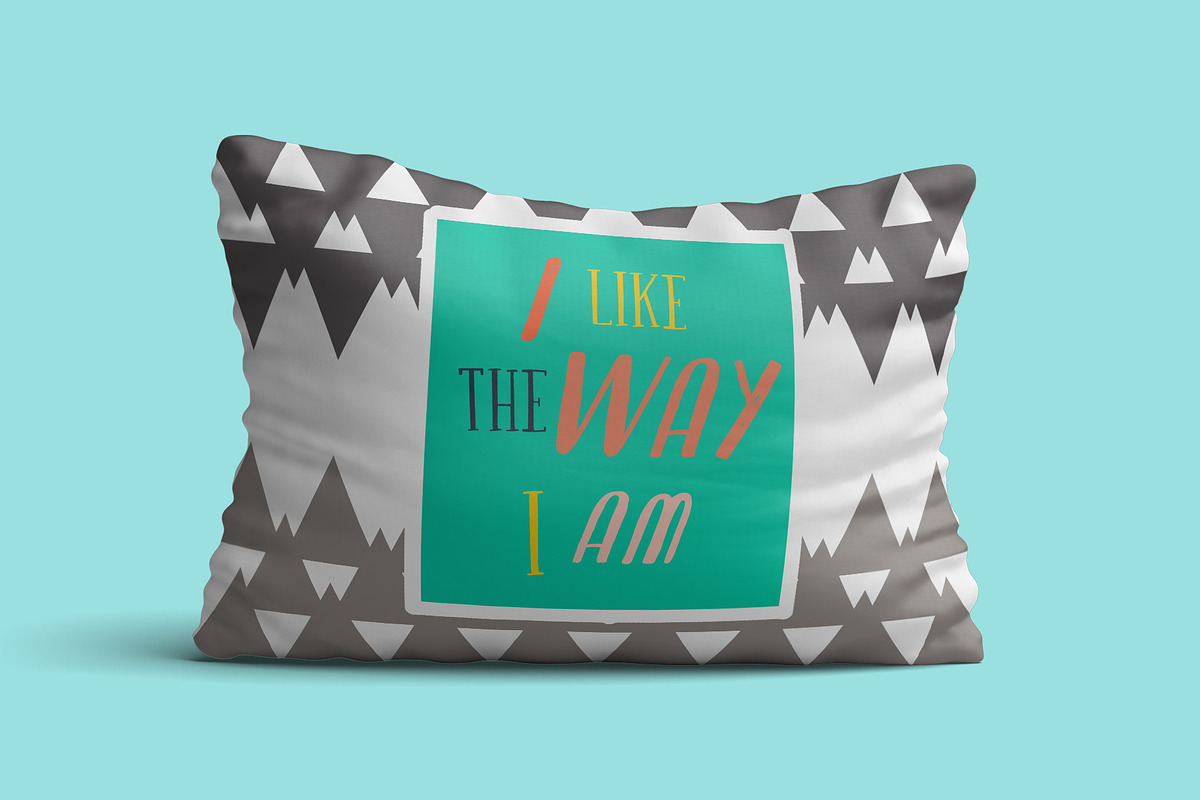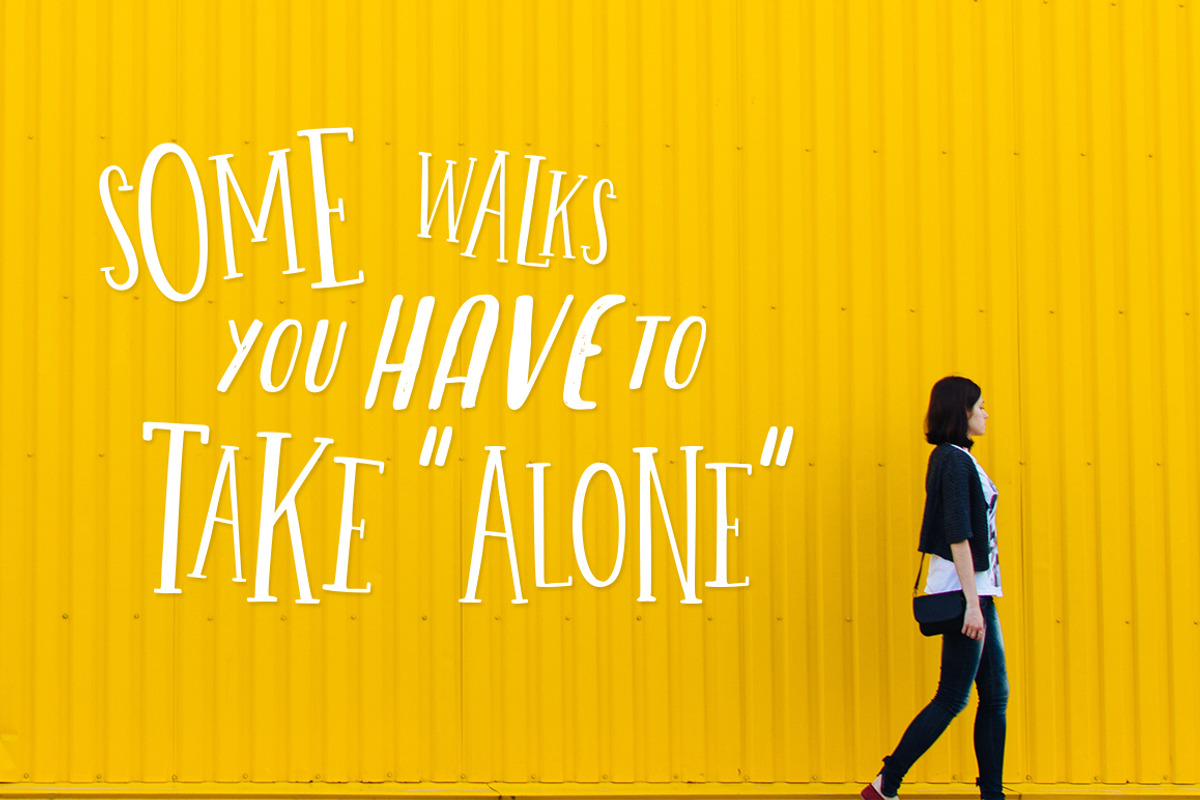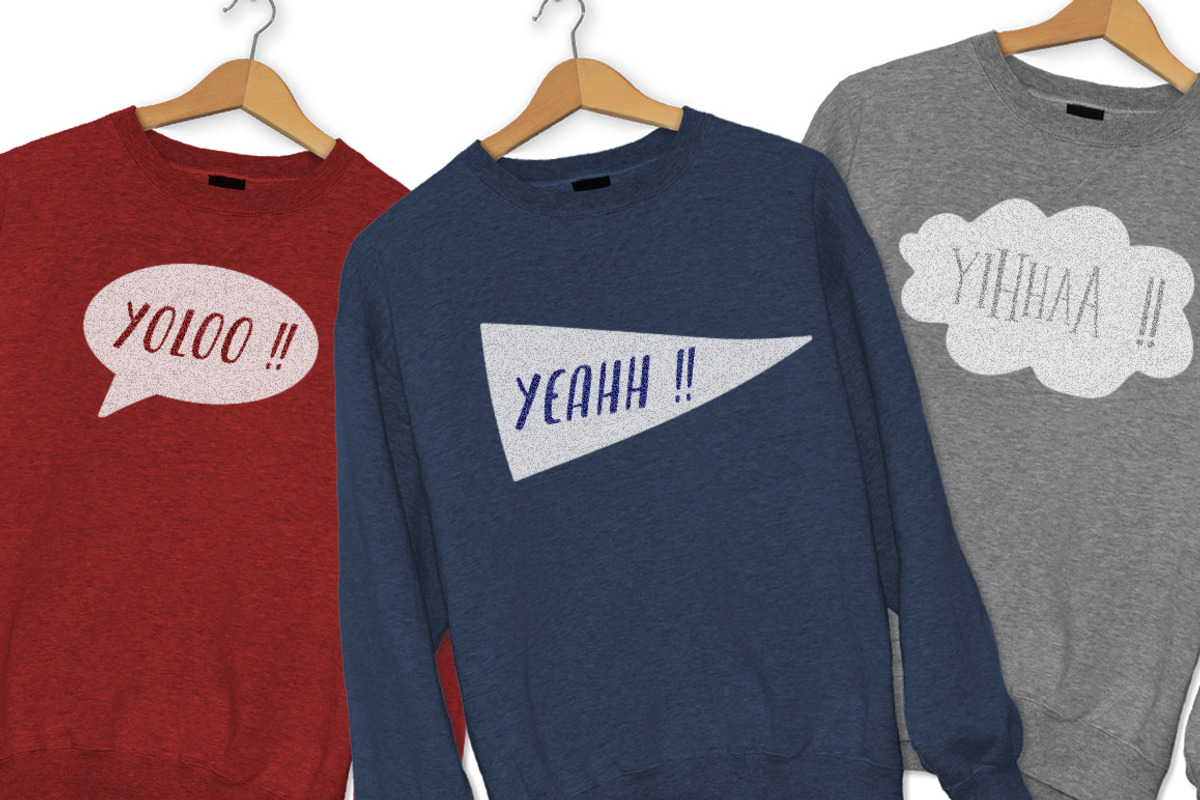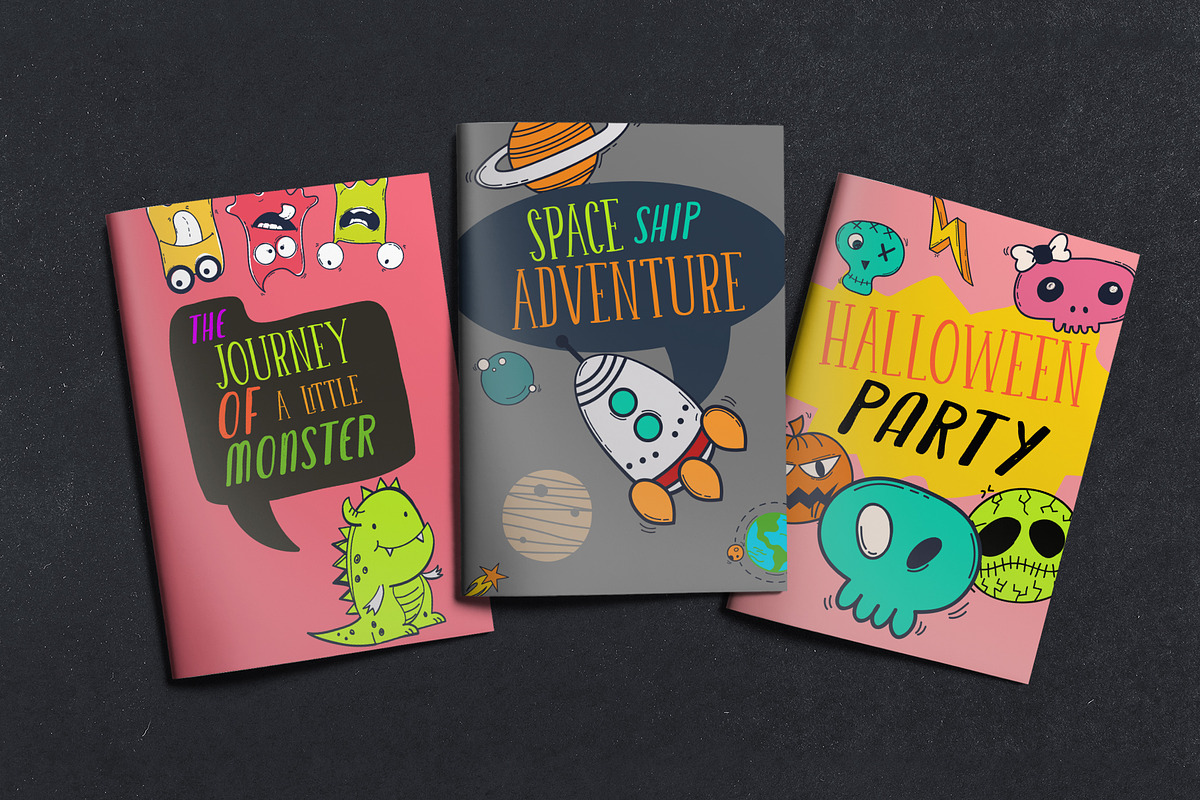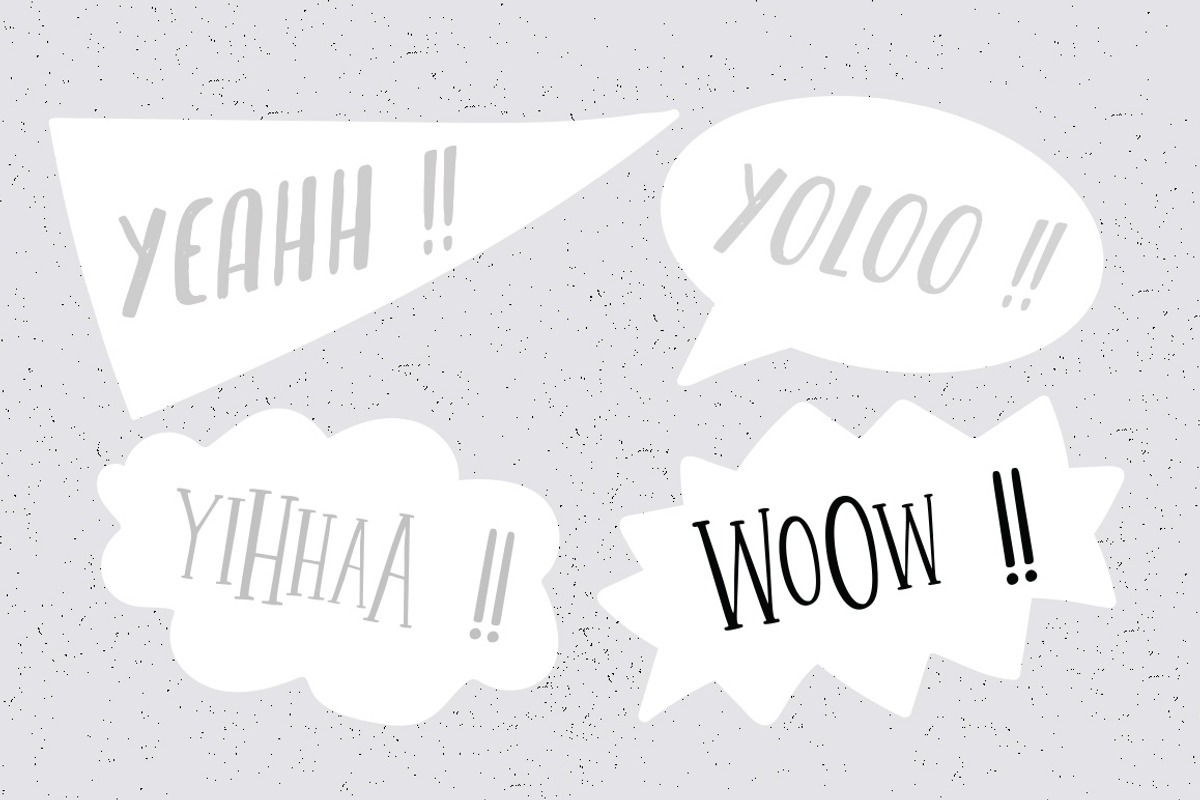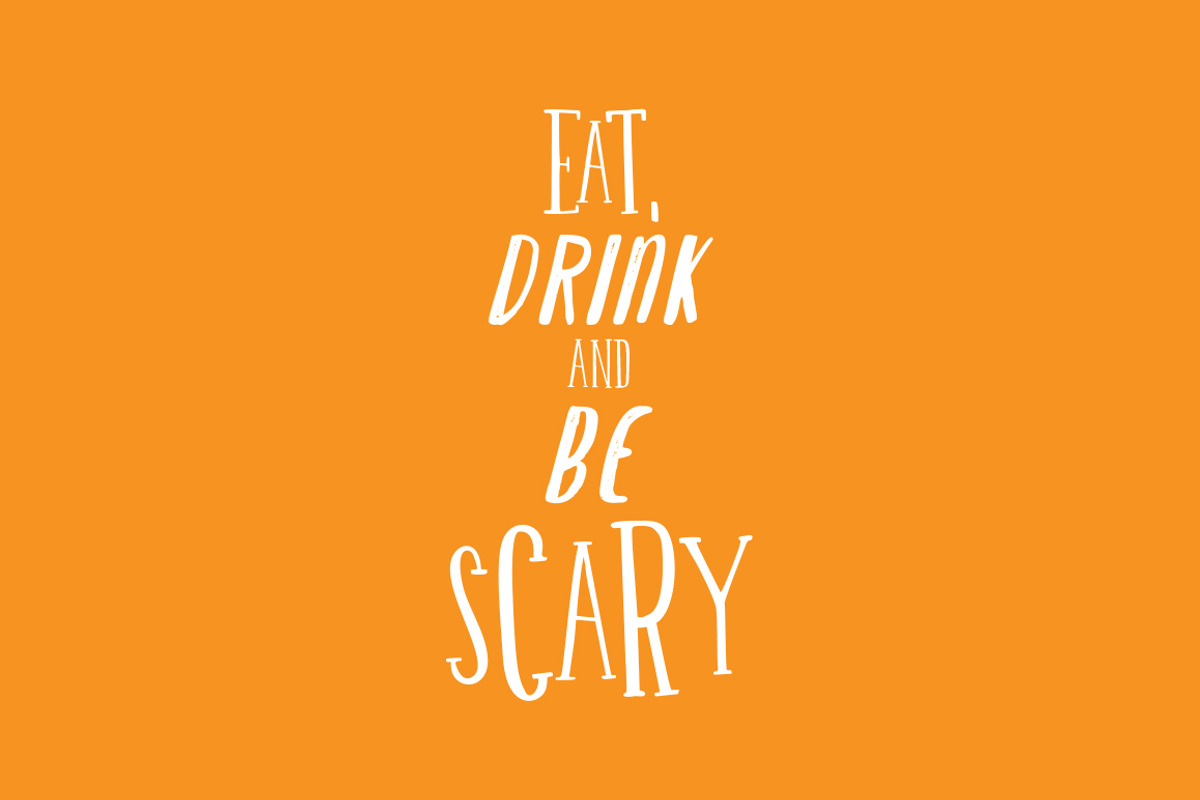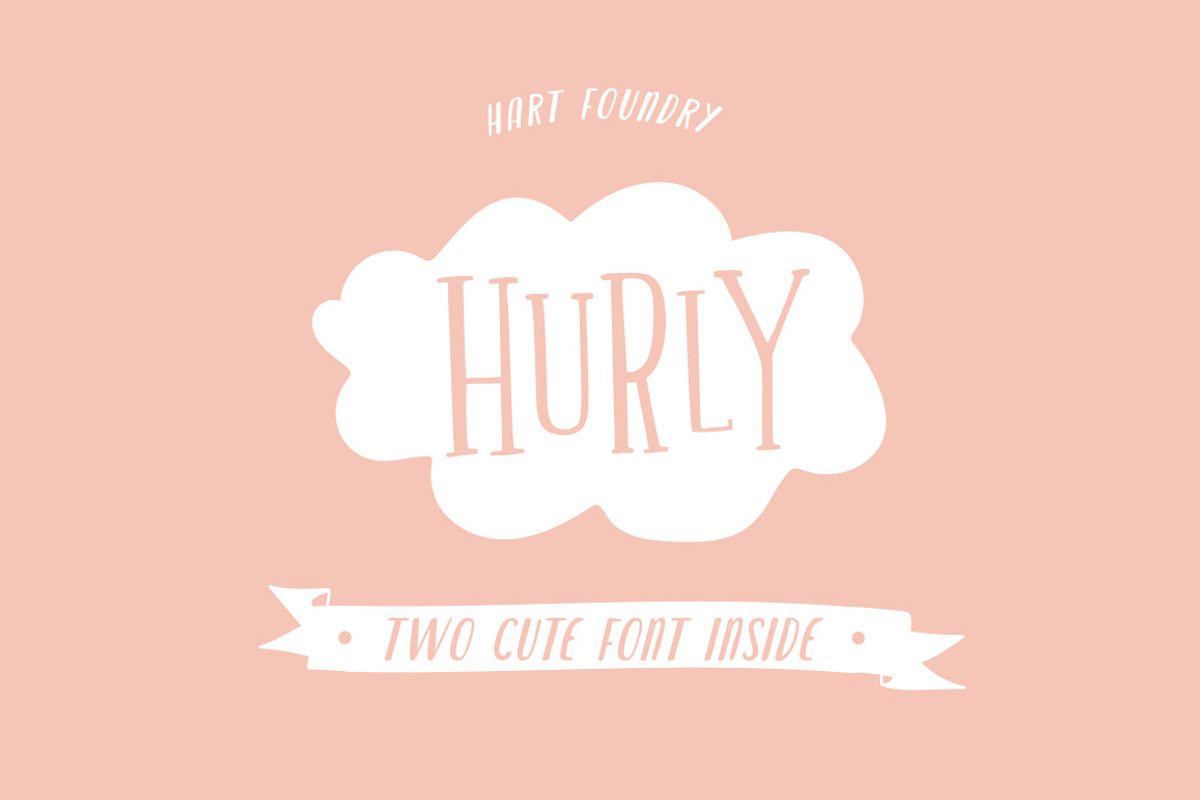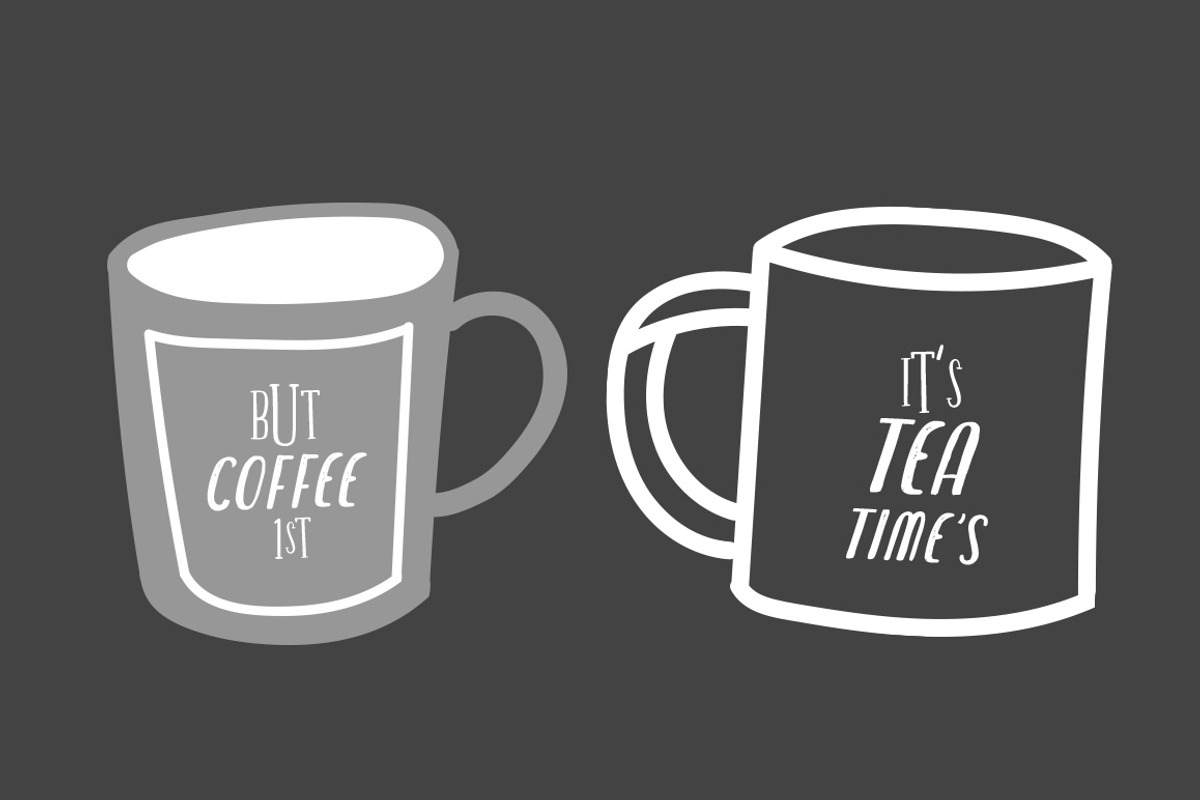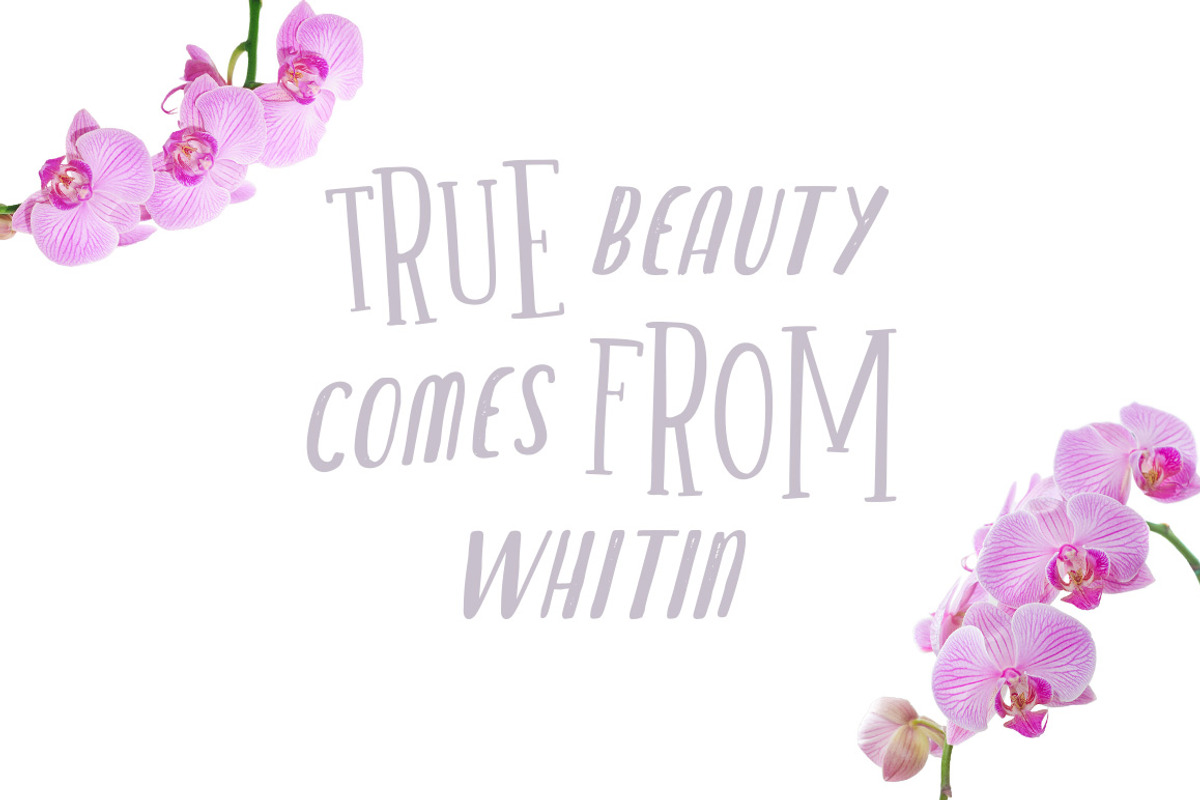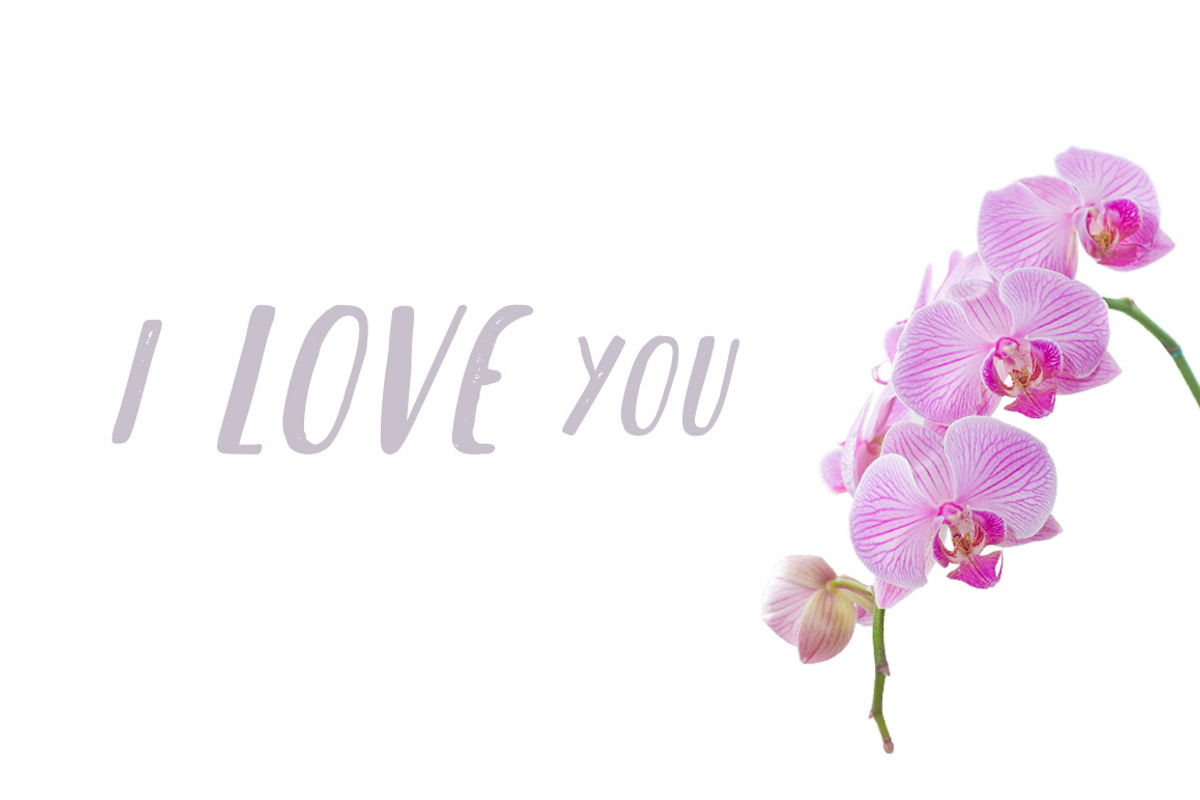
HURLY
HURLY is a condensed rounded rough typeface, with organic hand-written style, come with 2 family style ( Sherif and sans ), This font is a simple Condensed font which is perfect for your designs that want a rough style, modern vintage, elegant, soft, and carefully crafted for all graphic design needs. File Includes :